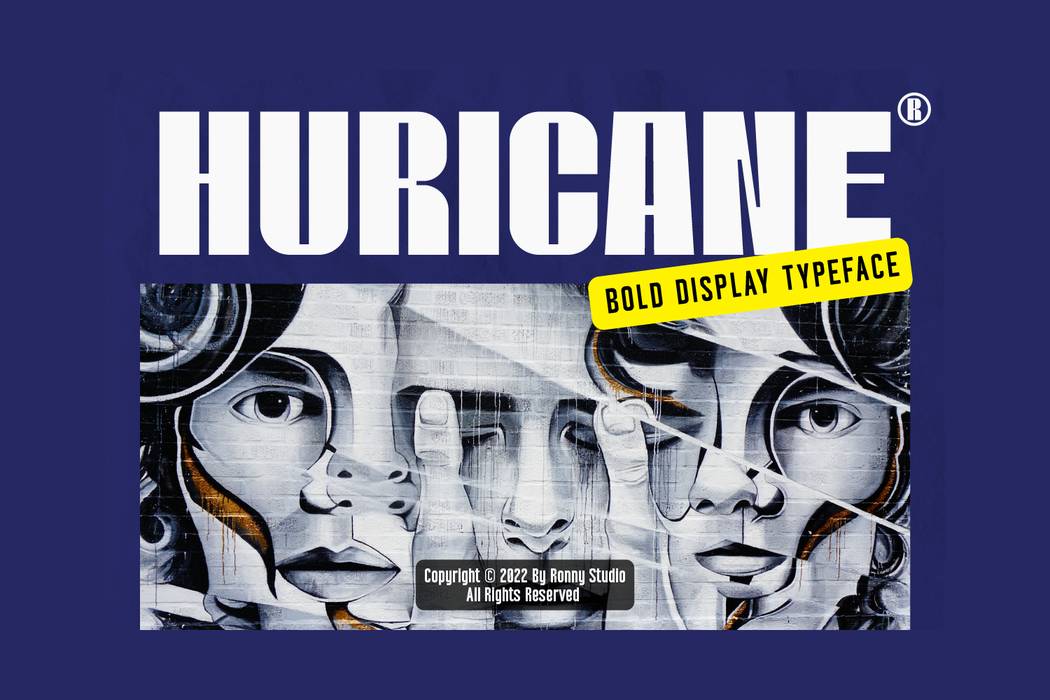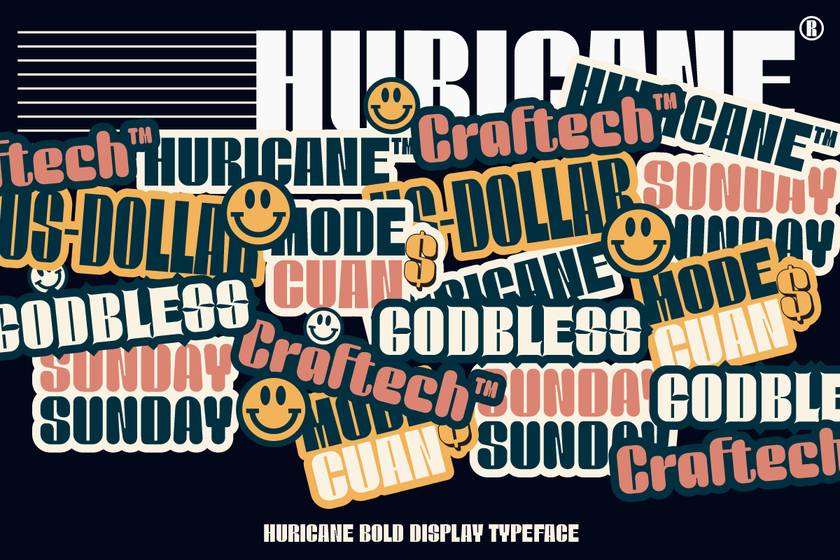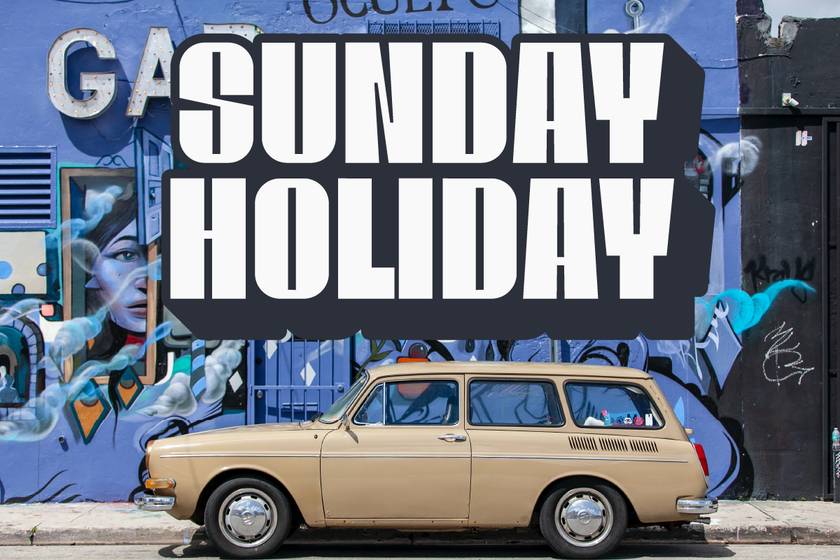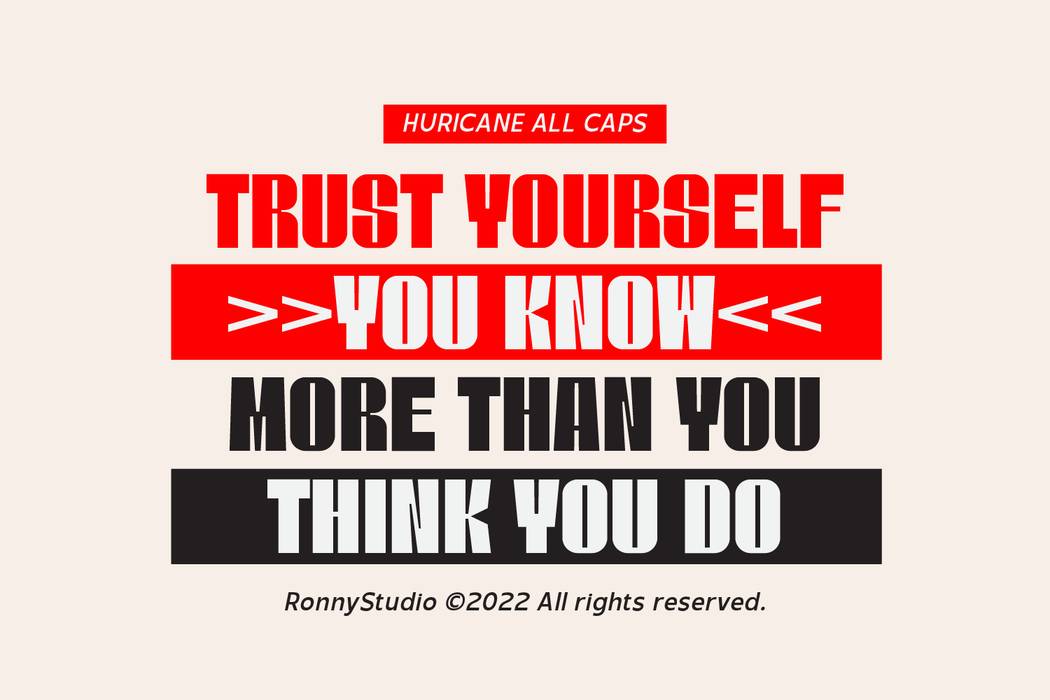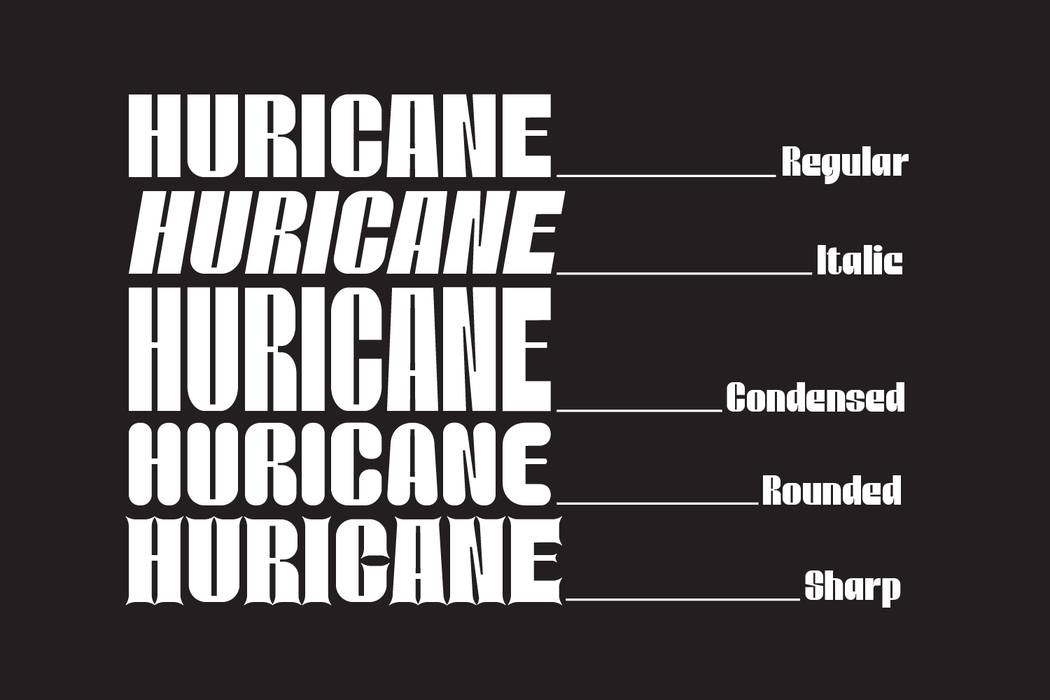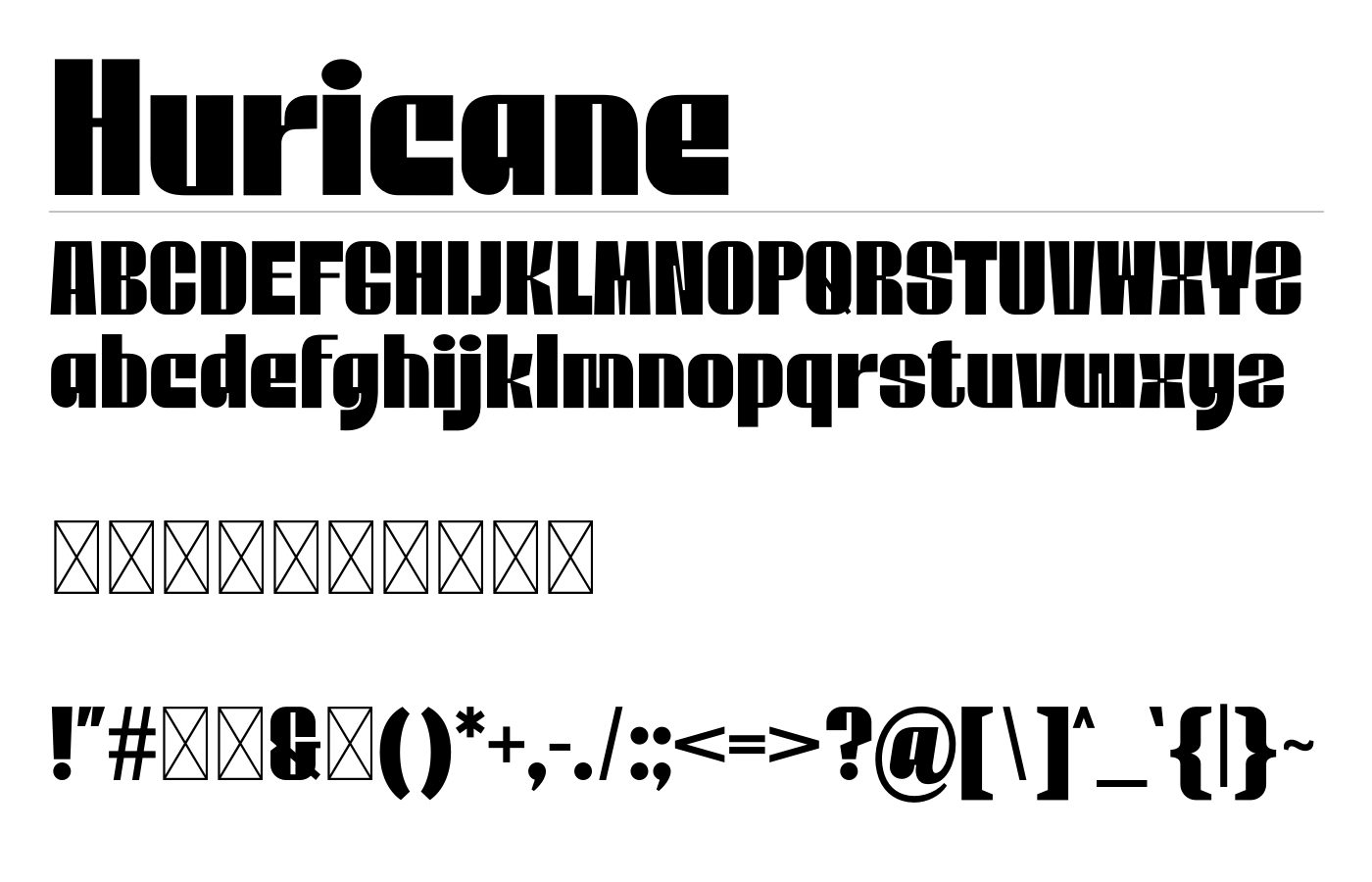
Huricane Font is a bold, condensed sans serif with a striking geometric style that gives it a powerful, modern personality. Its thick strokes and unique letterforms, such as unusual cutouts and sharp edges, create a strong visual impact perfect for attention-grabbing headlines, logos, and branding in fashion or entertainment industries. This font works best where a dramatic, confident look is desired, making it ideal for posters, packaging, and editorial highlights.
Huricane Font
About Huricane Font
| Font family | Huricane Font |
| Designer | Rony Rizki Jaya |